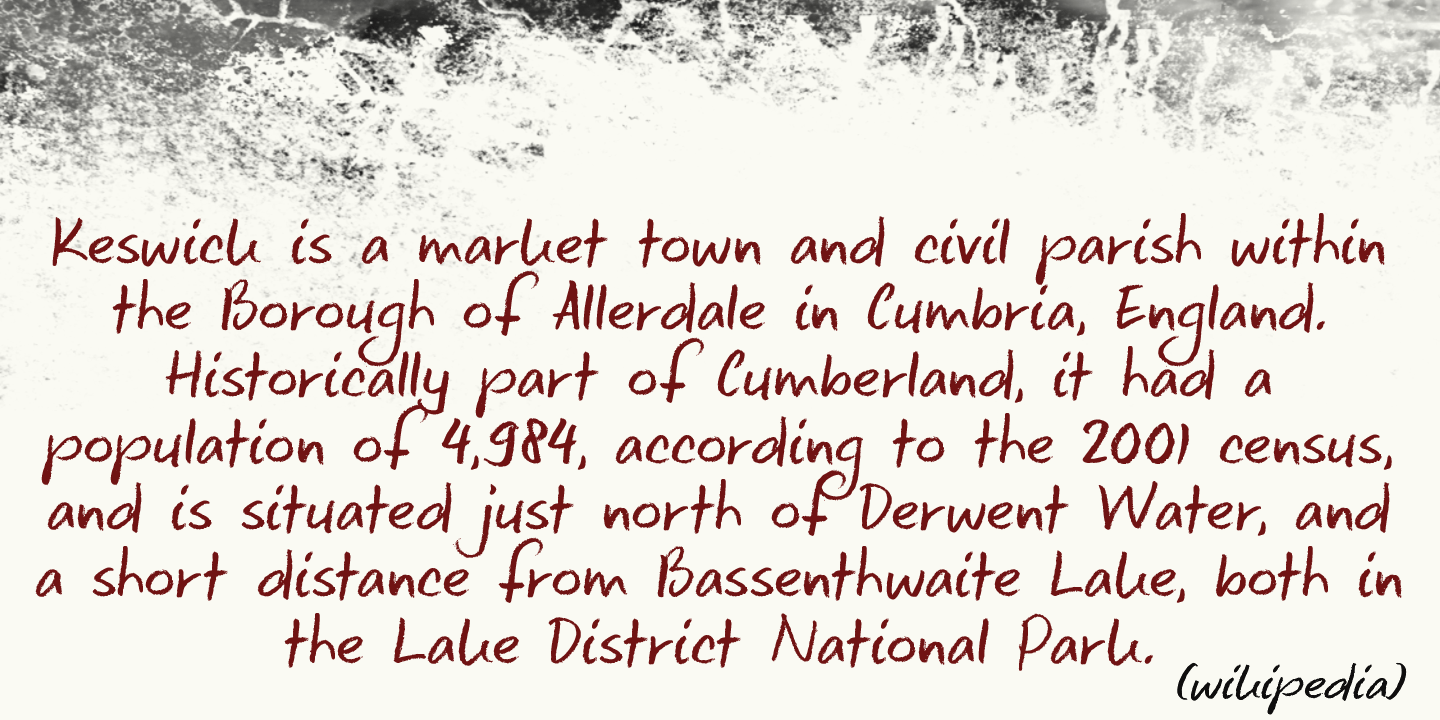
Keswick
Keswick is a beautiful small town in the English Lake District. It is a good place to hang out for a while and explore the surrounding National Park. During your stay you could visit the Keswick Pencil Factory - which brings us to this nice font? Keswick font was created using a 6B pencil (the crumbly, soft kind) and a lot of patience. I have to admit, the pencil used was not made in Keswick. Sorry 'bout that?